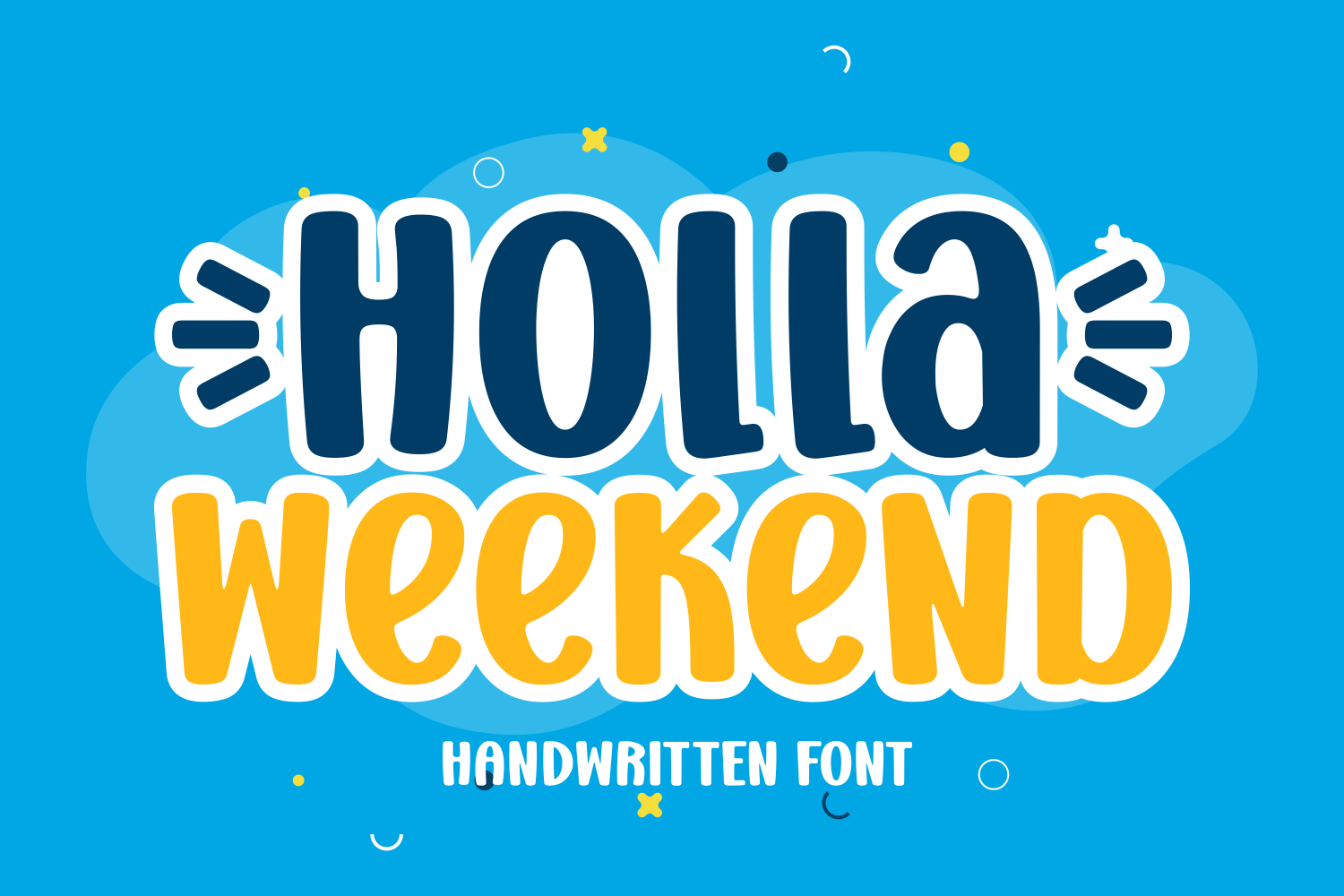
Holla Weekend is a thick lettered, fun, and friendly display font. It embodies playfulness and authenticity and is the perfect choice for any children’s activity or school project.